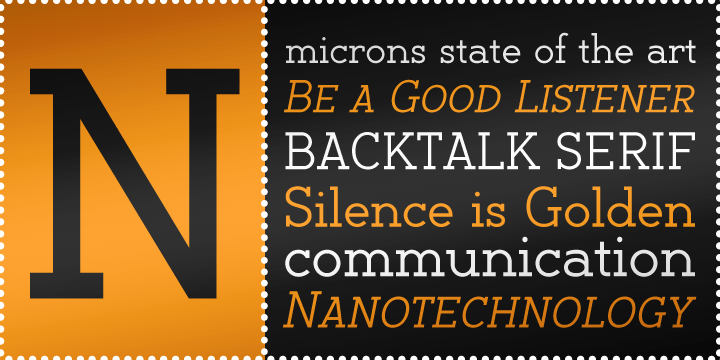
Backtalk Serif BTN
About Backtalk Serif BTN
Backtalk Serif is a geometric serif font family that takes a clean, simple, and straightforward approach to legibility. Inspired by humanist and geometric letterforms, the Backtalk family creates its own honesty with a hint of personality.